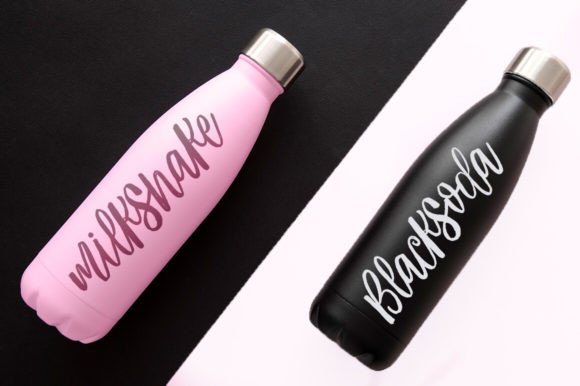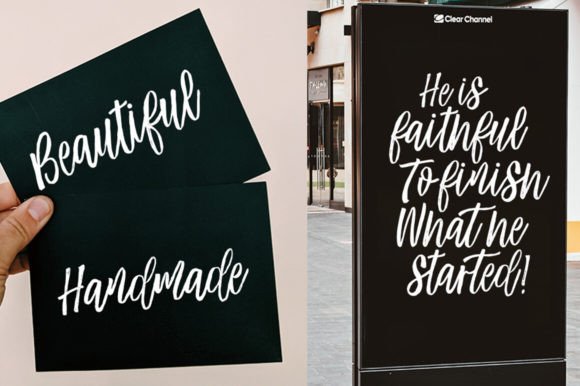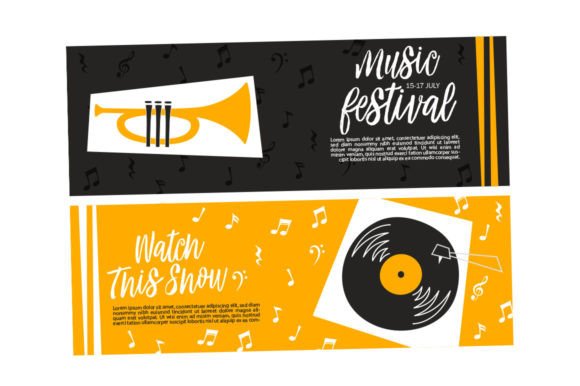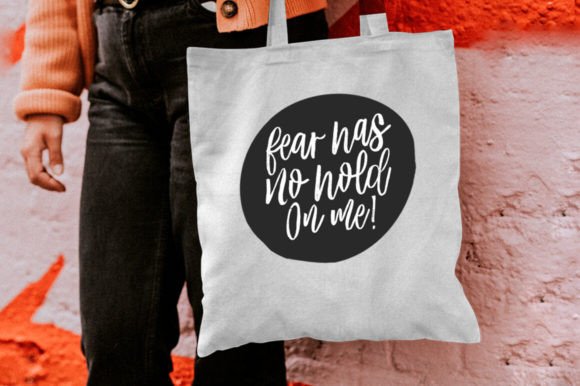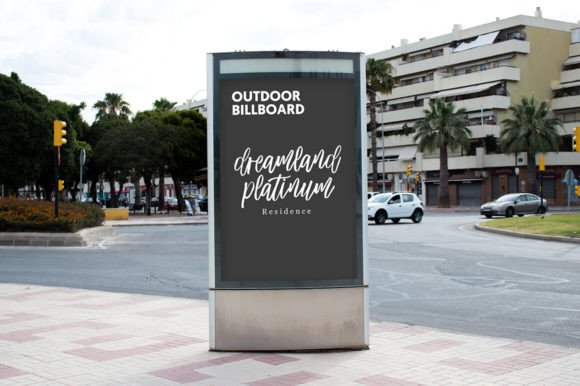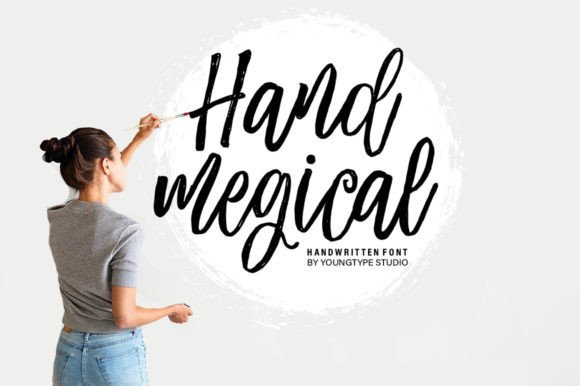
Introducing Hand Megical Font: Elevate Your Designs with Organic Elegance
In the world of typography, fonts play a crucial role in conveying the tone and personality of a design. For designers and crafters looking to add a touch of modern elegance to their projects, Hand Megical Font is an excellent choice. This modern font set boasts an organic, dynamic, and energetic style, making it perfect for a wide range of applications.
What is Hand Megical Font?
Hand Megical Font is a contemporary font set designed to bring a sense of freshness and creativity to your designs. Its organic and dynamic style gives it a unique, hand-crafted feel that’s perfect for making a statement. Whether you’re working on a title, signature, logo, or any other design element, Hand Megical Font is sure to impress.
One of the standout features of Hand Megical Font is its versatility. This font can be used for a variety of purposes, including:
- Titles and headings: Add a touch of elegance to your titles and headings with Hand Megical Font’s unique and dynamic style.
- Signatures: Create beautiful, one-of-a-kind signatures that reflect your personality.
- Logos: Use Hand Megical Font to create stunning logos that set your brand apart.
- Correspondence: Elevate your letters and emails with a touch of sophistication.
- Wedding invitations: Make your wedding invitations truly special with Hand Megical Font’s elegant and organic style.
- Letterheads and nameplates: Add a professional touch to your letterheads and nameplates.
- Labels and newsletters: Use Hand Megical Font to create eye-catching labels and newsletters.
- Posters and badges: Create stunning posters and badges that grab attention.
Why Choose Hand Megical Font?
So, why should you choose Hand Megical Font for your design projects? Here are just a few reasons:
- Unique and dynamic style: Hand Megical Font’s organic and energetic style sets it apart from other fonts.
- Versatility: This font can be used for a wide range of applications, making it a great addition to any designer’s toolkit.
- High-quality design: Hand Megical Font is designed to deliver high-quality results, making it perfect for professional designers and crafters.
Tips for Using Hand Megical Font
To get the most out of Hand Megical Font, here are a few tips:
- Experiment with different sizes and colors: Hand Megical Font looks great in a variety of sizes and colors, so don’t be afraid to experiment.
- Pair with other fonts: Try pairing Hand Megical Font with other fonts to create interesting and dynamic combinations.
- Use it sparingly: While Hand Megical Font is perfect for titles and headings, it can also be used sparingly to add a touch of elegance to other design elements.
Hand Megical Font is a modern font set that offers a unique and dynamic style, perfect for designers and crafters looking to elevate their designs. With its versatility, PUA encoding, and high-quality design, this font is sure to become a staple in any designer’s toolkit. Whether you’re working on a title, signature, logo, or any other design element, Hand Megical Font is an excellent choice.